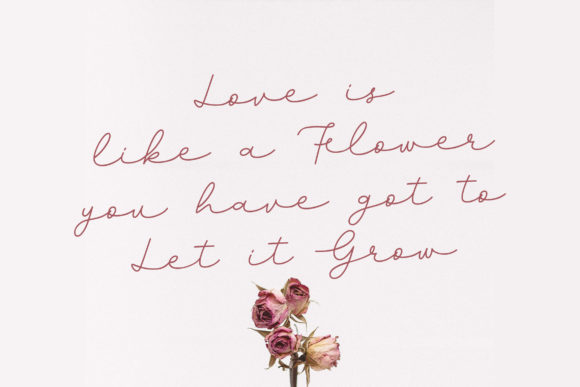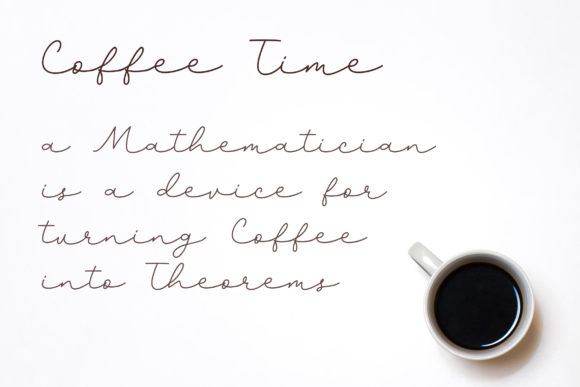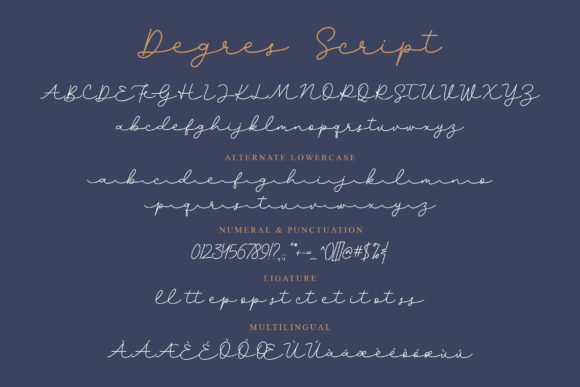
Introduction to Degres Script Font
The Degres Script is a sweet monoline script font.
Including some ligatures and alternates, it can be used to give your design a beautiful and elegant look .
Why Choose Degres Script Font?
Degres Script Font offers exceptional quality and versatility, making it a valuable addition to your design toolkit. Whether you’re creating for personal projects or commercial use, Degres Script Font delivers professional results.